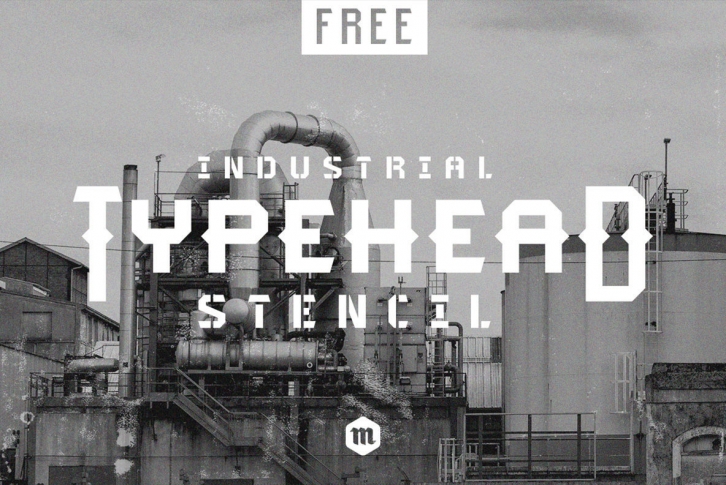
Typehead is a 4 font family with different decorations. Typehead is a robust and industrial font, and is perfect to use in modern-themed designs who needs a industrial touch.